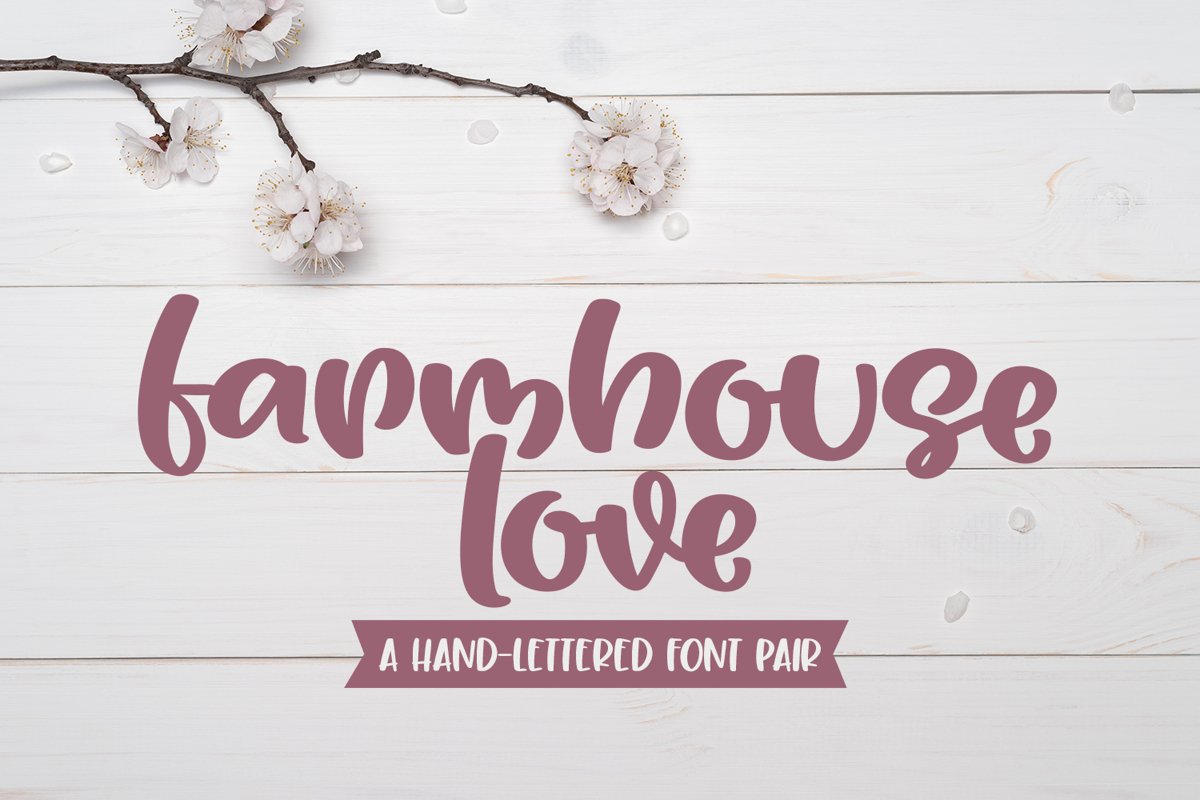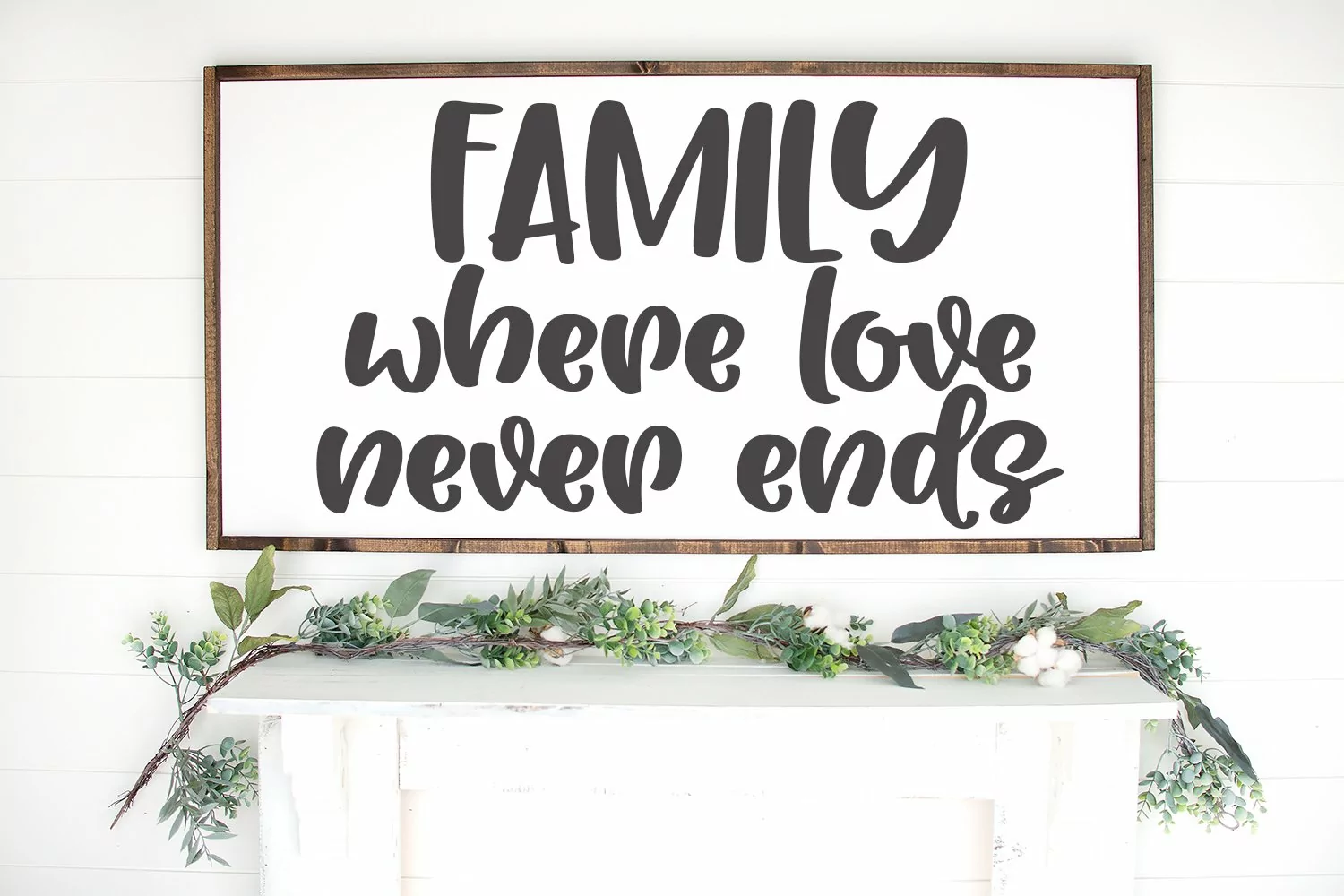
Farmhouse Love - A Playful Handlettered Font Pair
Farmhouse Love is a playful handlettered font pair, made specifically for crafters with clean lines and minimal nodes.